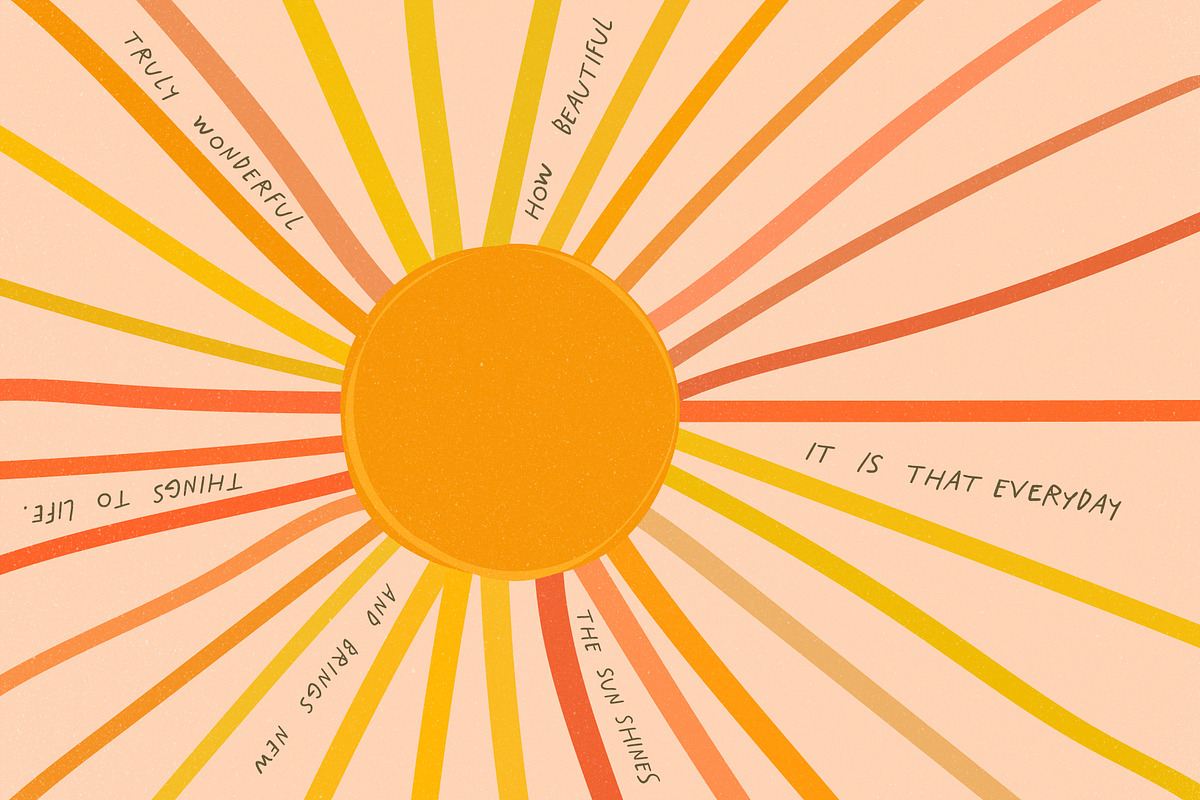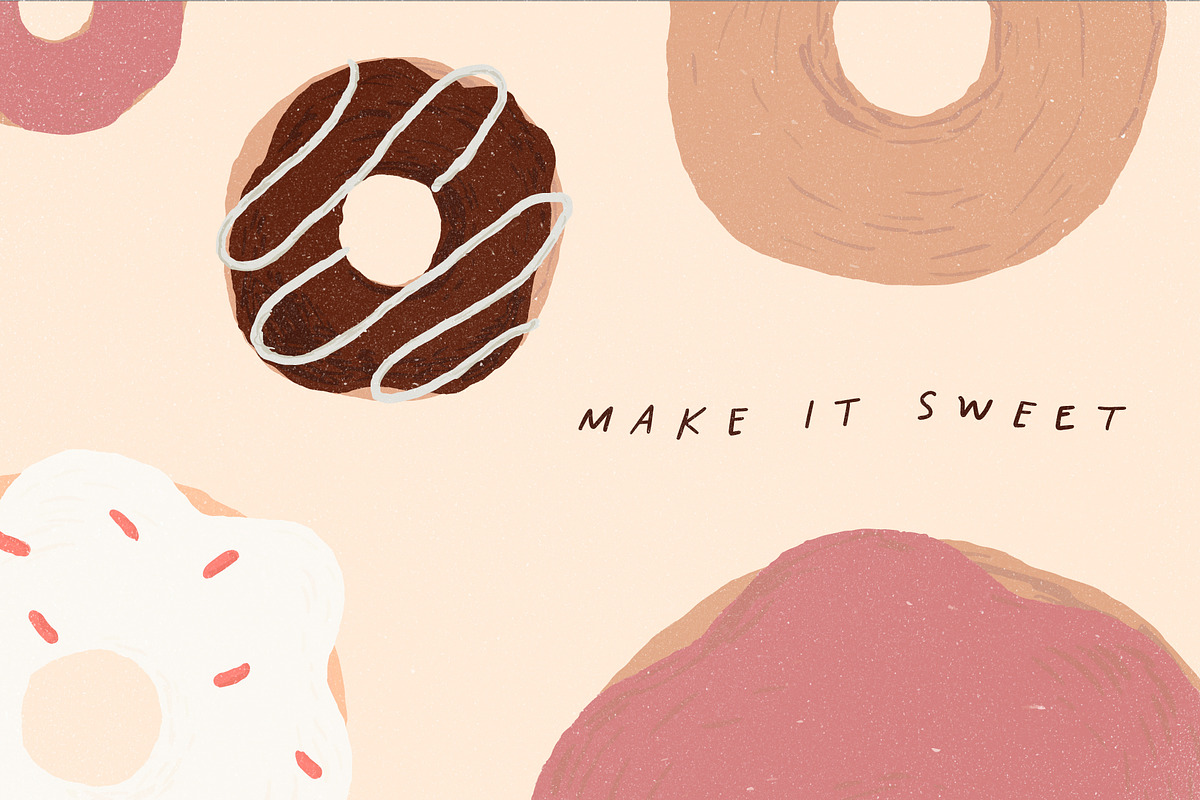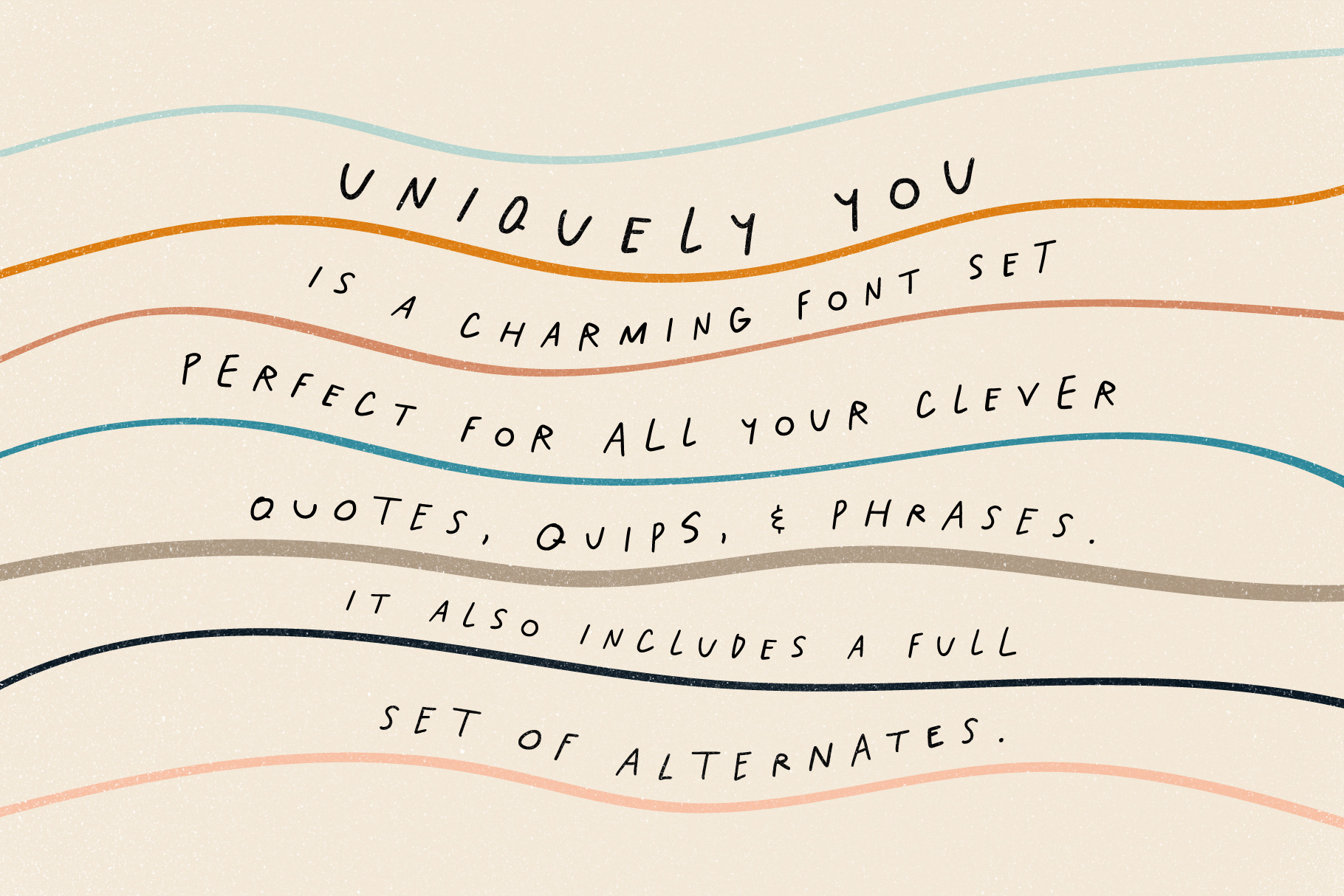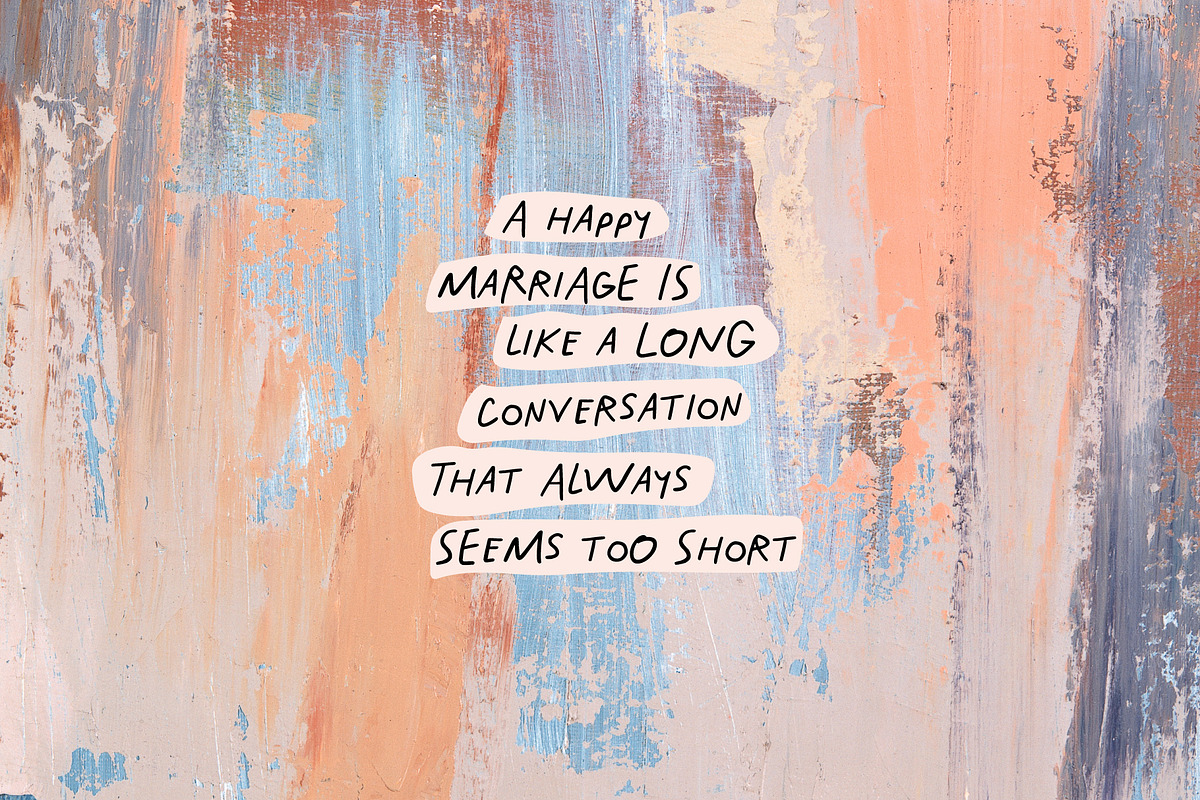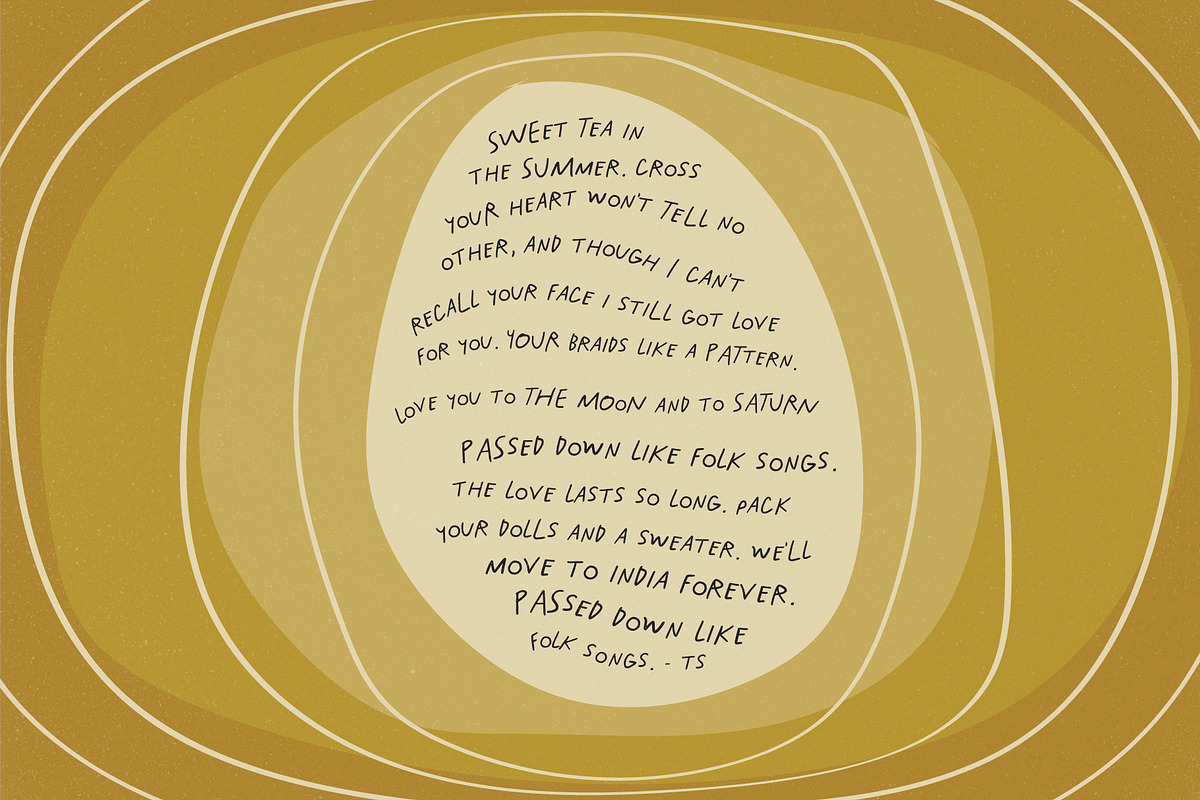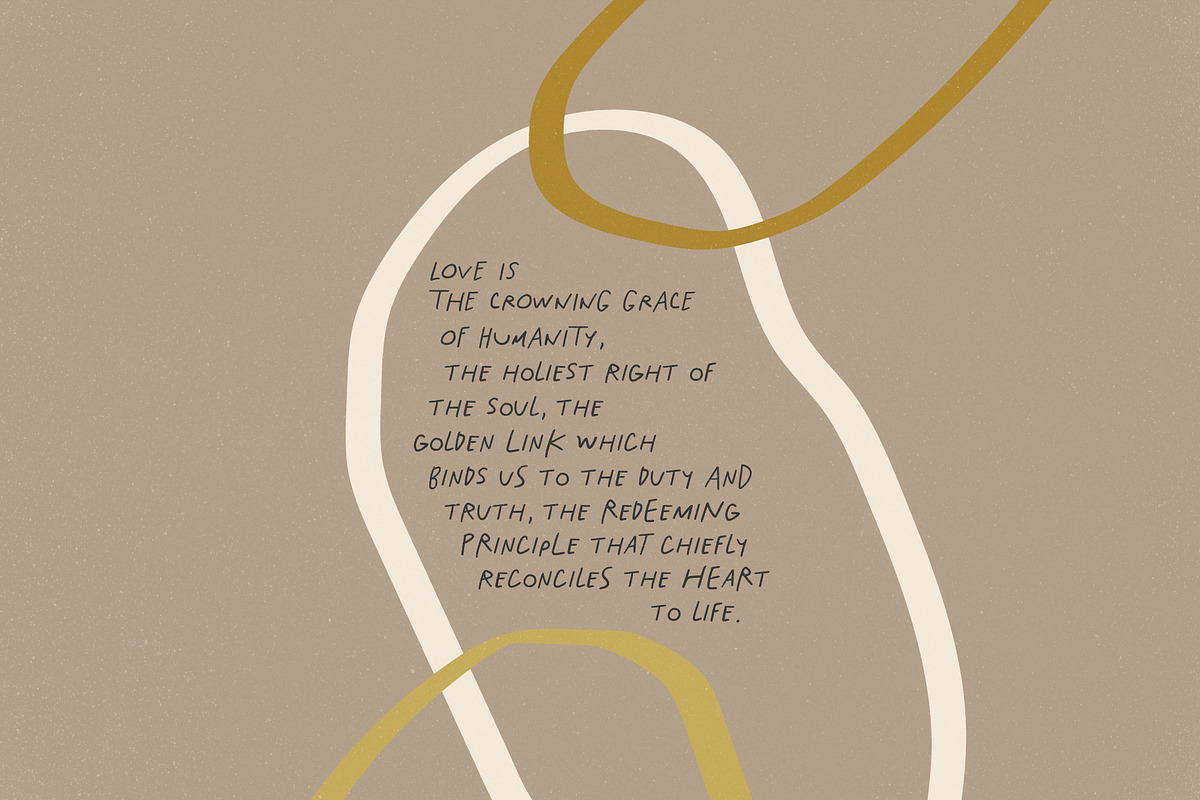
Uniquely You Font
ABOUT UNIQUELY YOU FONT :
Uniquely You is a playful hand-drawn typeface that will help you stand out from the rest. AND it comes with a full set of alternates made into their own typeface so you can Mix-N-Match to your hearts desire! Help keep that hand drawn aesthetic consistent in your designs, with these two beauties. Truly great for quotes, invitations, greeting cards, journals, kids room wall art, and more. This font will make your designs playful and fun!
Over 75 Bonus Glyphs including International Language Support Cheers!